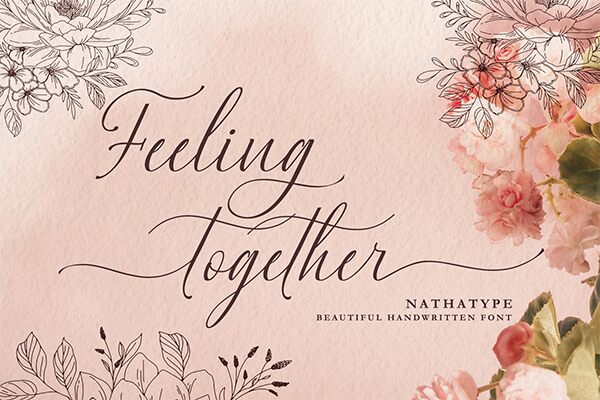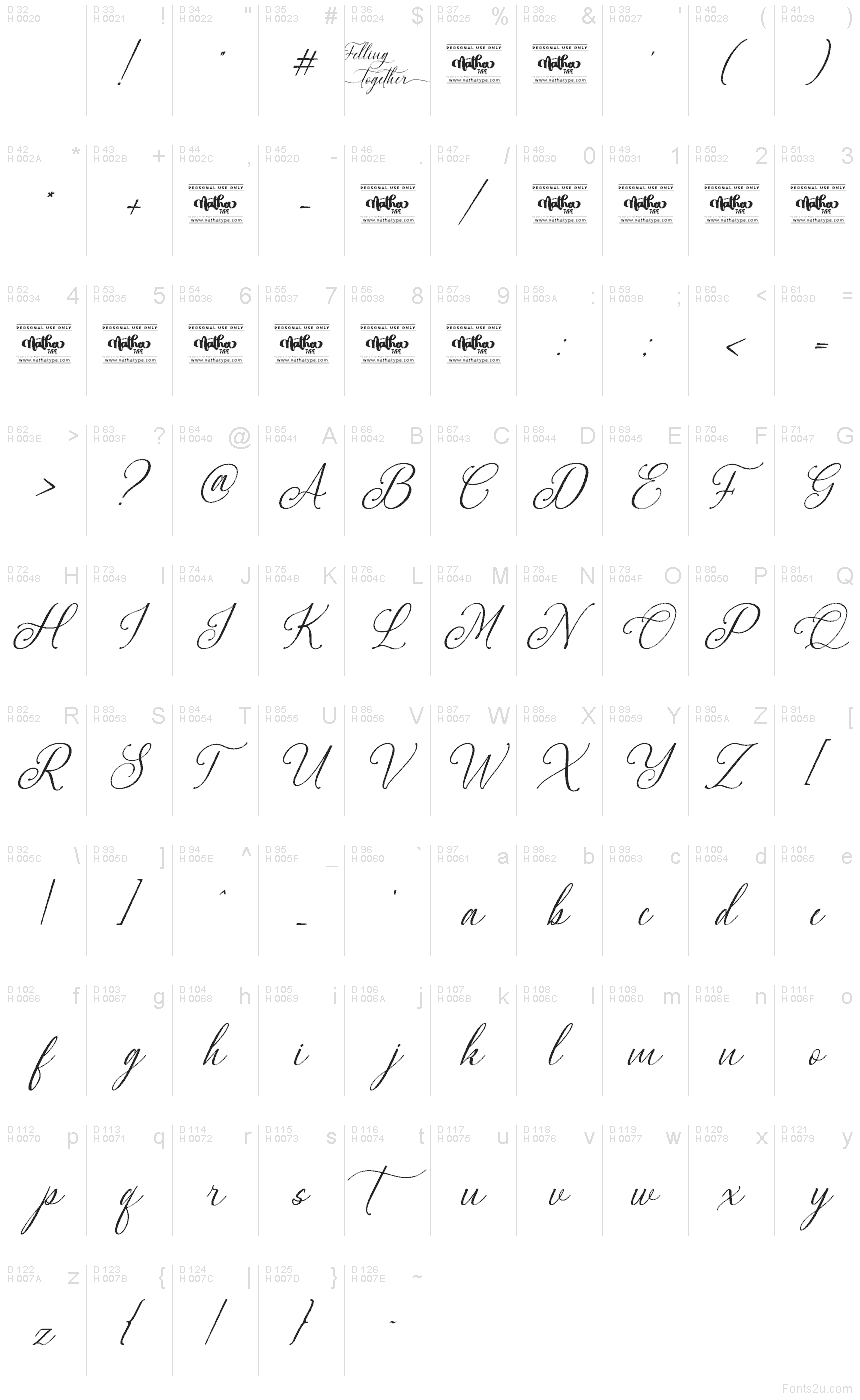
Feeling Together Personal Use
Feeling Together font by Nathatype is a free handwritten script typeface that captures the sweep and grace of a carefully inked signature. Long, silky curves and airy connections give it a romantic, breathable rhythm, while the gentle slant keeps lines moving with effortless poise. It reads as tender and polished at once—like a note penned on fine stationery.
Using Feeling Together, headlines and names float beautifully on wedding invitations, save‑the‑dates, boutique logos, beauty packaging, quote graphics, and event signage. The strokes are delicate, so give this free font room to shine at larger sizes for crisp detail. For balance, pair it with a clean sans in small caps or a simple grotesque for body copy to keep the message clear.